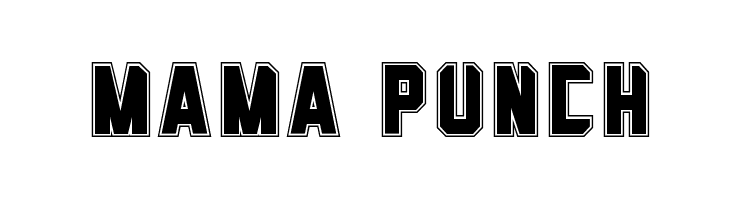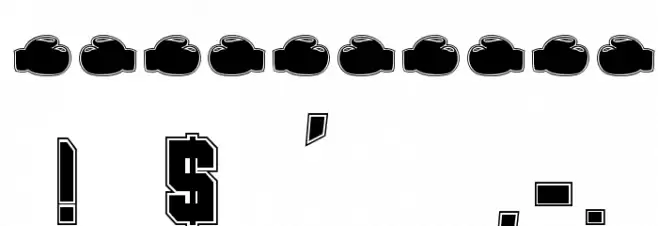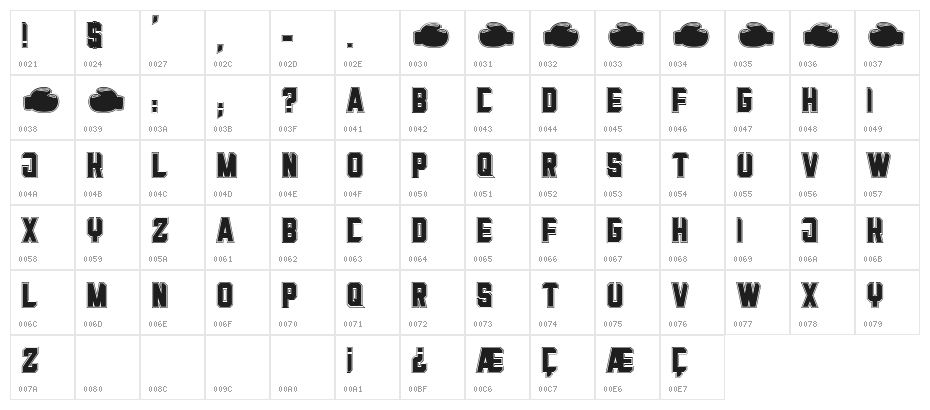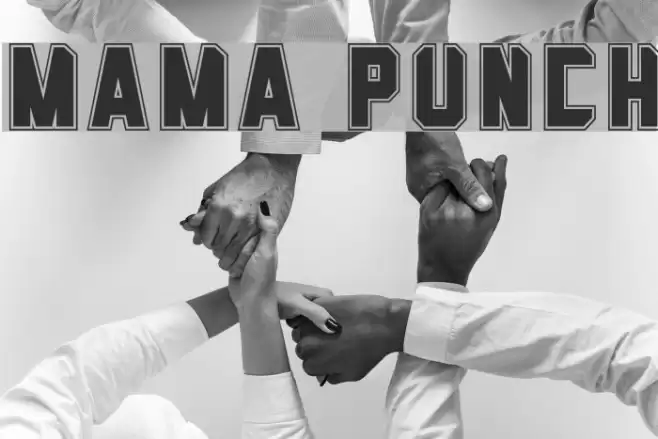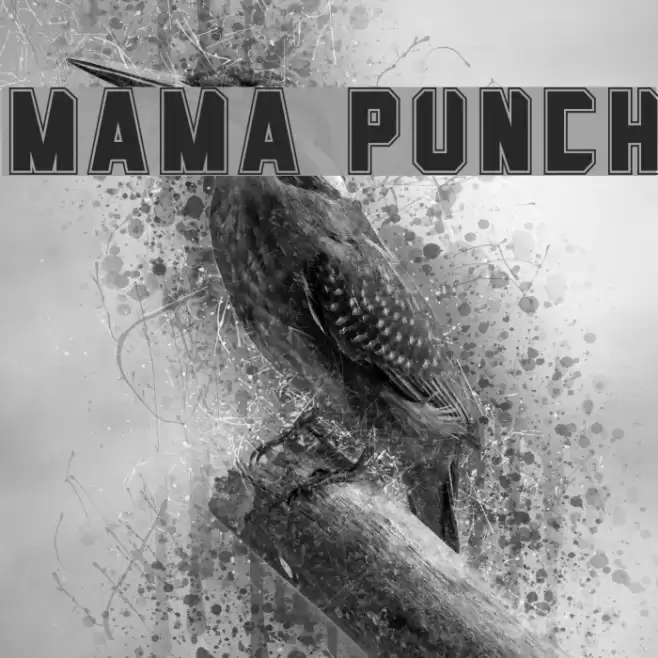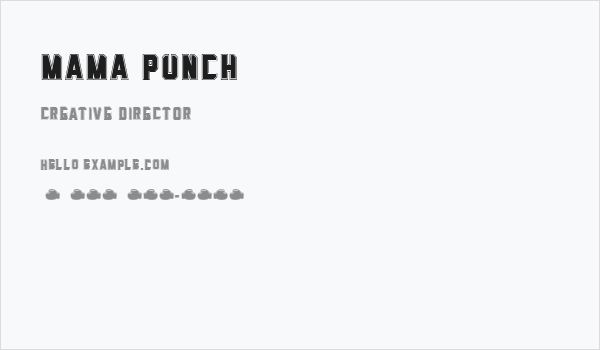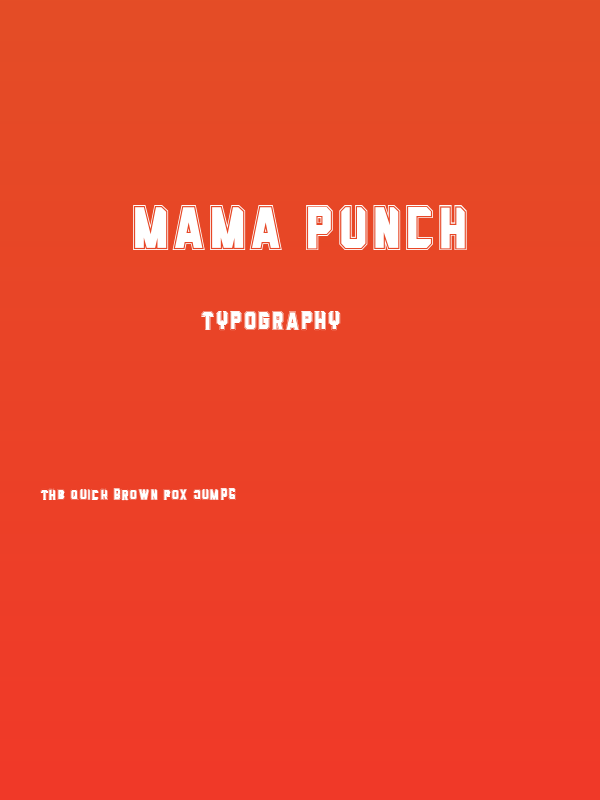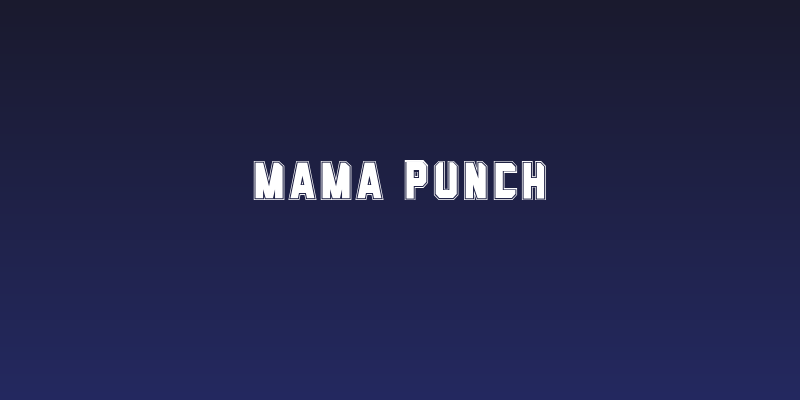
Mama Punch Font
Mama Punch Description
This bold and impactful font features a strong, geometric design with thick, block-like characters. Each letter is outlined, creating a striking contrast between the inner and outer spaces. The uppercase letters are uniform in height, with sharp angles and a slightly condensed appearance. The font's style is reminiscent of sports or action-themed typography, making it ideal for attention-grabbing headlines or logos. The special characters, including punctuation and symbols, maintain the same bold and structured aesthetic, ensuring consistency across all uses.
| Proposed Projects | Ideal for sports branding, action movie posters, dynamic event flyers, and bold logo designs. |